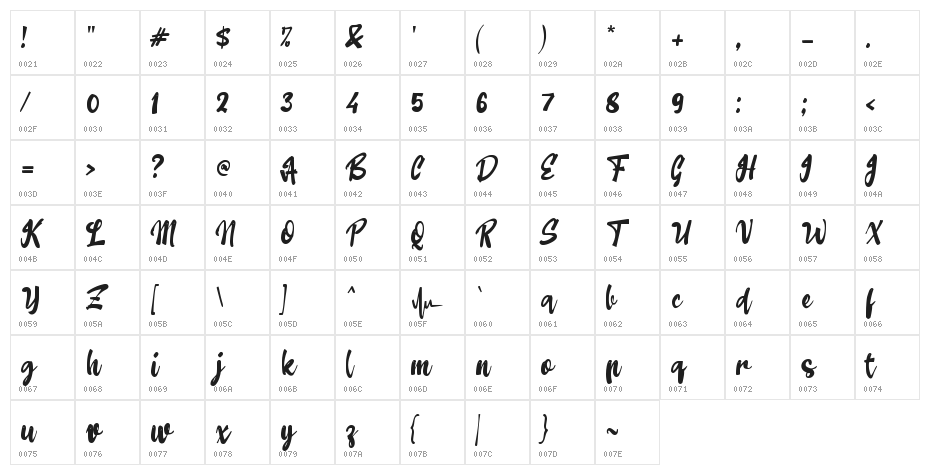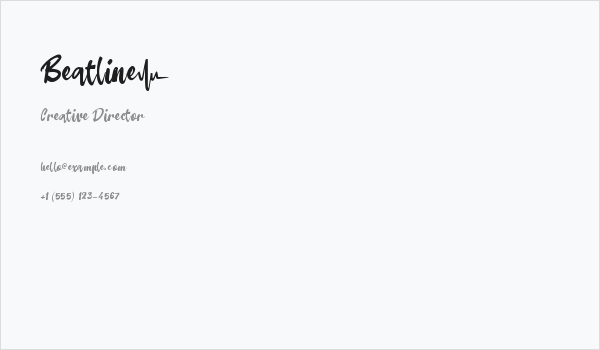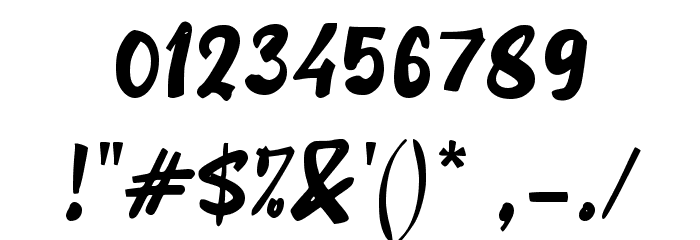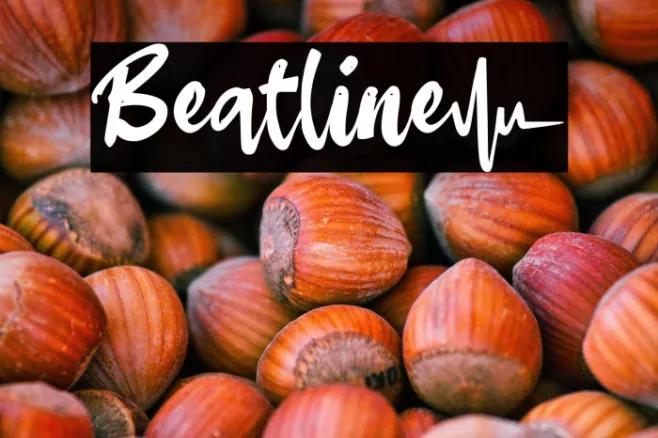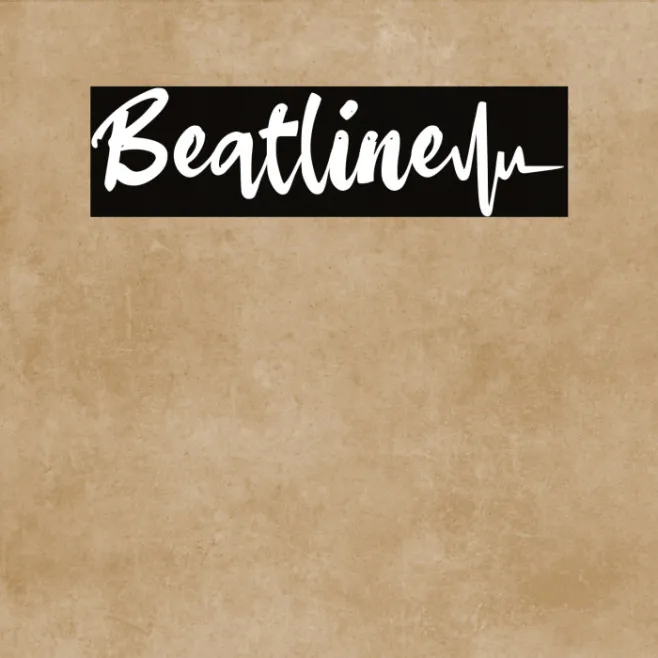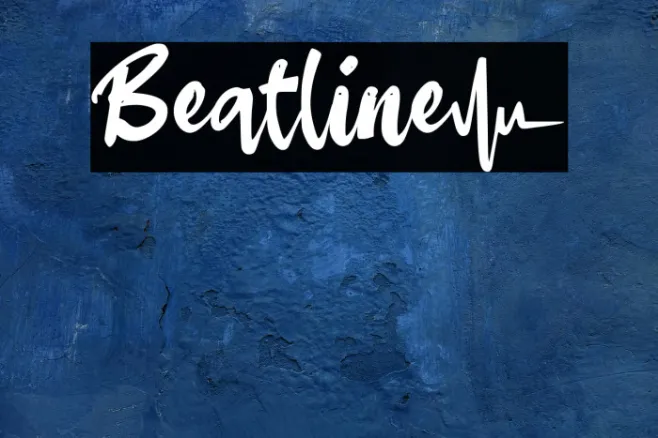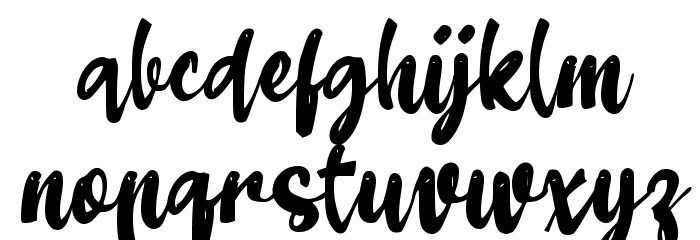
Beatline_ Font
Beatline_ Description
This font features a bold and expressive script style with a handwritten appearance. The characters are fluid and dynamic, with a noticeable slant that adds a sense of movement and energy. The strokes vary in thickness, creating a high contrast that enhances its visual impact. The uppercase letters are particularly bold and prominent, while the lowercase letters maintain a consistent flow. The numerals and special characters are designed to match the overall style, ensuring a cohesive look across all text elements.
| Proposed Projects | Ideal for branding projects, logo design, invitations, and any creative work that requires a personal touch. |